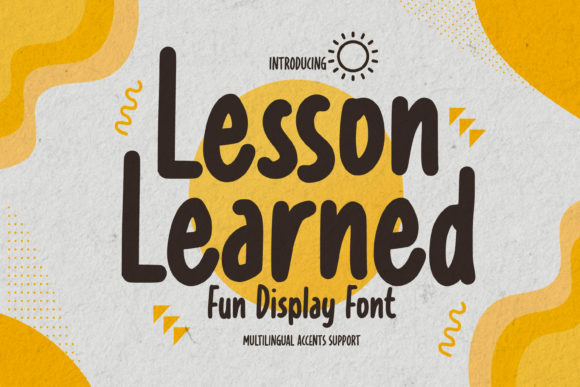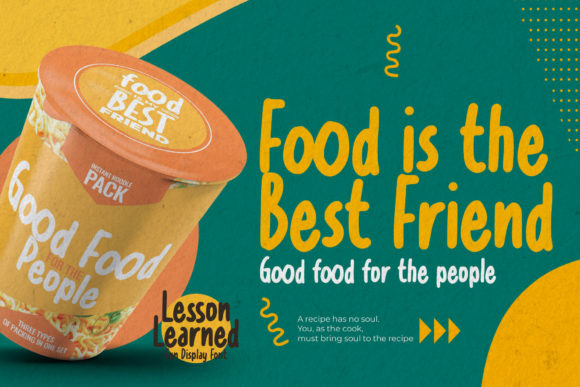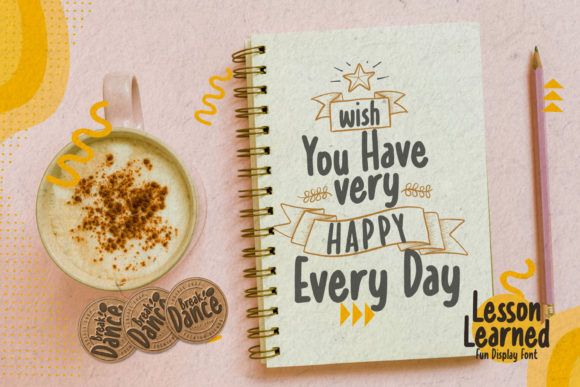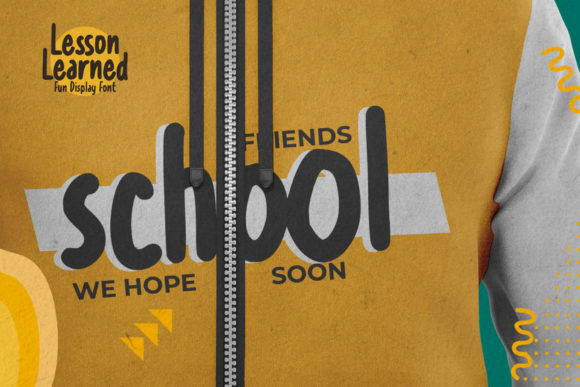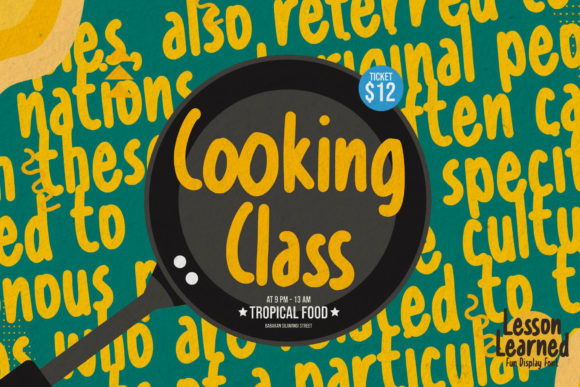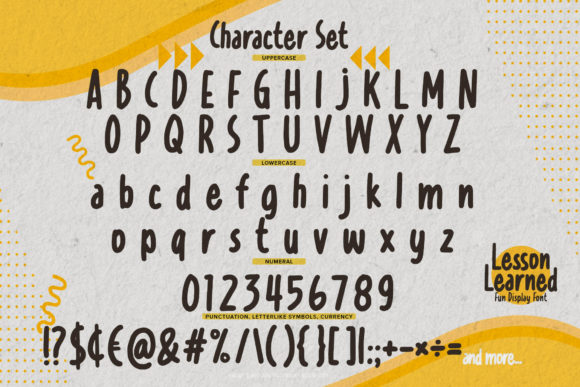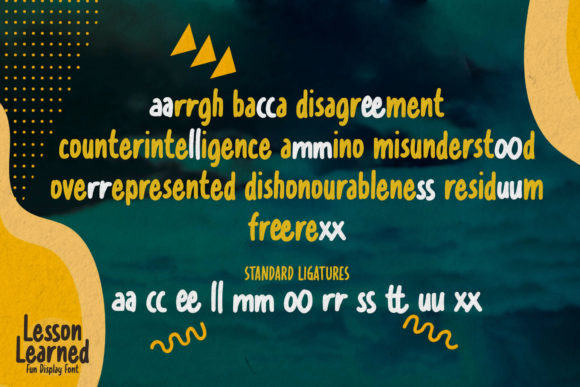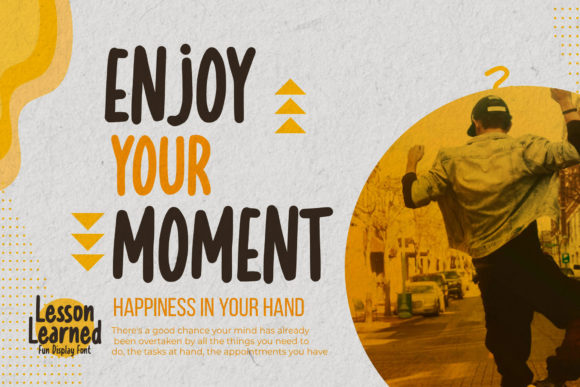
Lesson Learned Font
About Lesson Learned Font
Lesson Learned is a cute, simple and adaptable handwritten font. Whatever the topic, this font will be a wonderful asset to your font library, as it has the potential to enhance any creation.